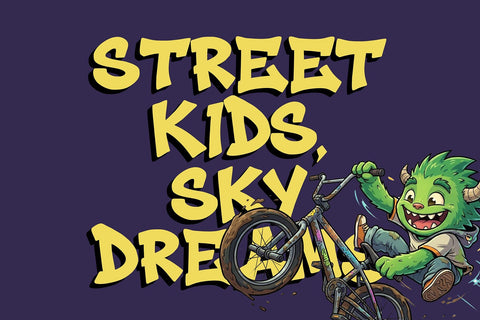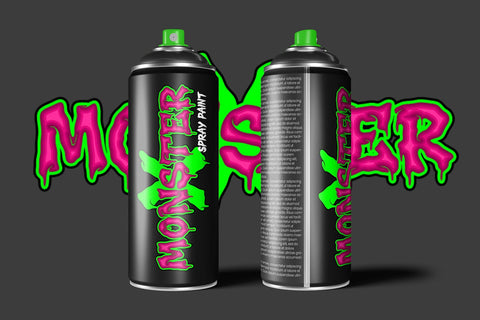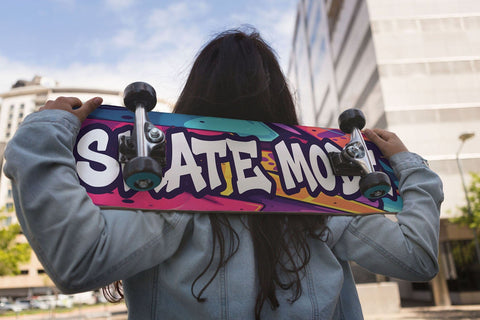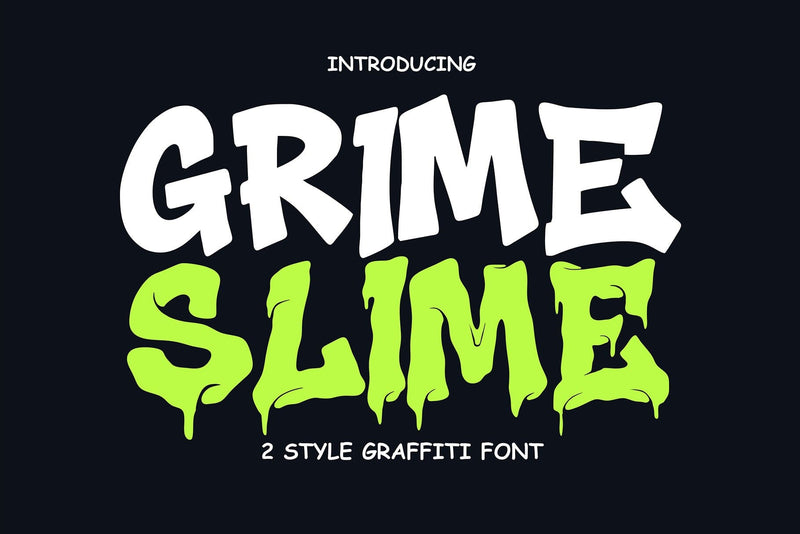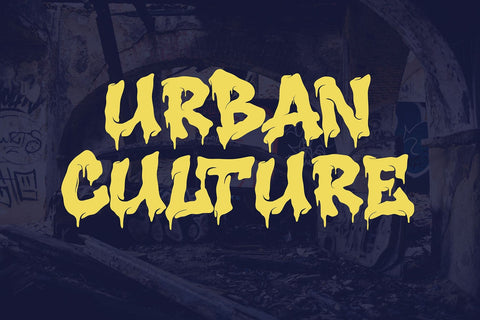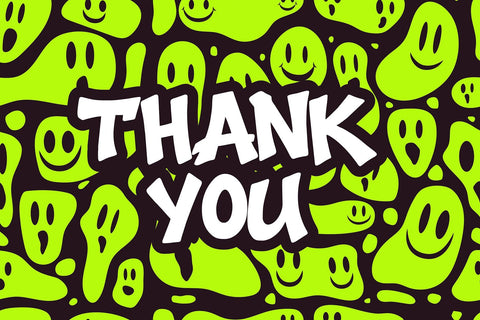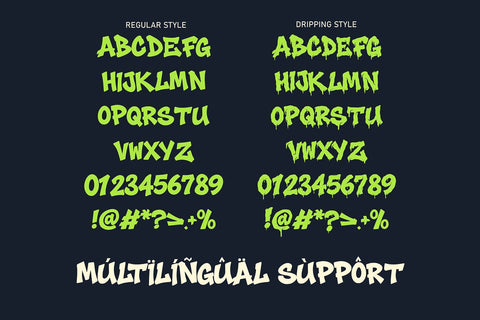
Grime Slime | Melted Graffiti Font with Toxic Flow
Grime Slime is a bold melted graffiti style designed to deliver raw street energy with a toxic slime flow aesthetic. Inspired by underground graffiti culture, urban decay, horror visuals, and dripping street lettering, this typeface brings aggressive character and visual impact into modern design projects. Every letterform looks as if it is melting, oozing, and dripping with poisonous slime, creating a powerful visual presence that feels alive, dangerous, and expressive.
This font is built for designers who want to push boundaries. The letter shapes are intentionally distorted with uneven edges, liquid drips, and organic melting forms that mimic toxic fluids flowing downward. The balance between chaos and readability makes Grime Slime highly usable while still maintaining its wild graffiti soul. It works perfectly for headlines, display typography, and visual statements where attention is essential.
Grime Slime is ideal for streetwear branding, skate and BMX graphics, hip-hop and trap music artwork, album covers, horror posters, movie titles, gaming visuals, YouTube thumbnails, Twitch overlays, graffiti logos, sticker packs, tattoo designs, and urban promotional materials. Its toxic melted look fits perfectly into themes such as horror, underground culture, dystopian visuals, post-apocalyptic artwork, and edgy modern branding.
The font supports uppercase characters, numbers, and punctuation, ensuring flexibility across different layouts. The strong visual rhythm of the letters makes it effective for both short phrases and impactful typography compositions. Whether used on dark backgrounds or bold color palettes, Grime Slime maintains its dripping slime effect with maximum contrast and attitude.
Designers working in apparel, merchandise, posters, flyers, social media content, and digital branding will find Grime Slime extremely versatile. It performs exceptionally well in print and digital formats, especially when paired with textures, grunge backgrounds, neon colors, or high-contrast compositions.
Grime Slime is not a clean or minimal typeface. It is intentionally loud, expressive, and aggressive. It represents rebellion, street freedom, and raw creativity. This font speaks directly to creators who want their work to feel dangerous, experimental, and unapologetically bold.
If you are looking for a melted graffiti style that delivers toxic energy, underground attitude, and modern street appeal, Grime Slime is the perfect choice to amplify your designs and make them impossible to ignore.